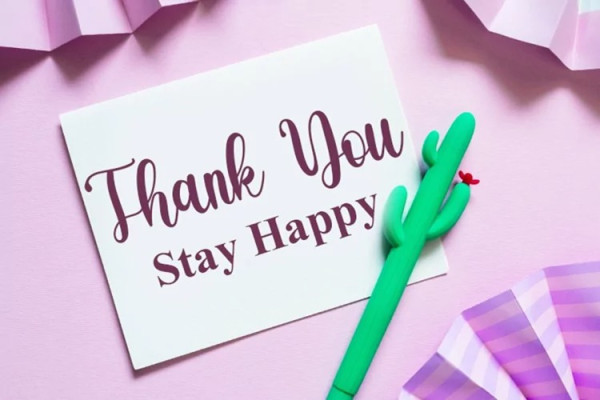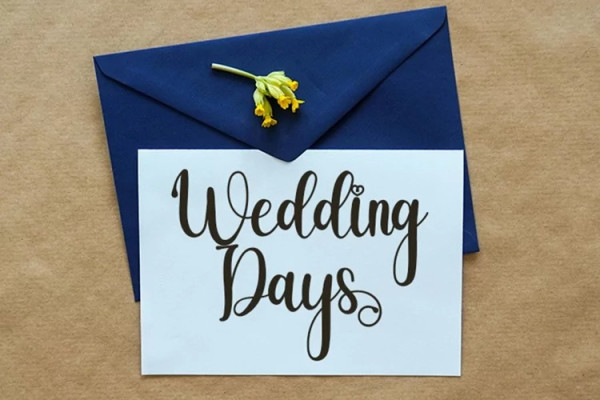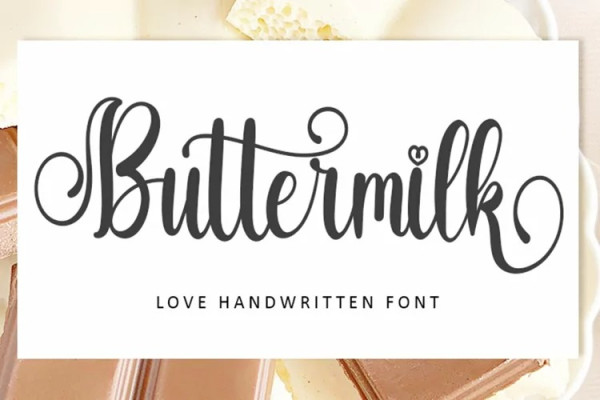
Buttermilk Font
Buttermilk Font a great Sweet Handwritten font. Can be used for various purposes such as logos, wedding invitations, headings, t-shirts, youtube banners, layers, banners, mockups and many more. This font is PUA encoded which means you can access all glyphs and swashes with ease!